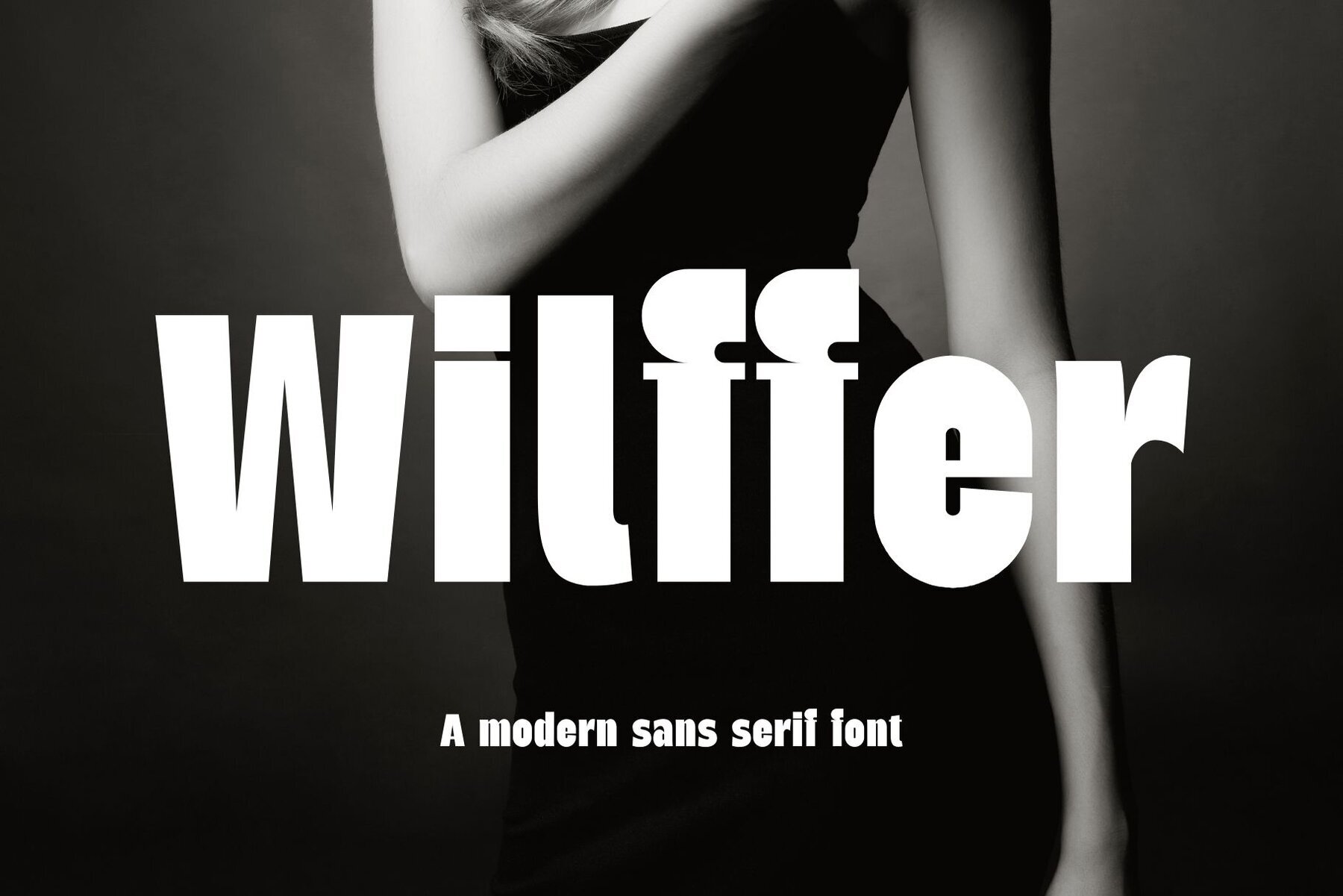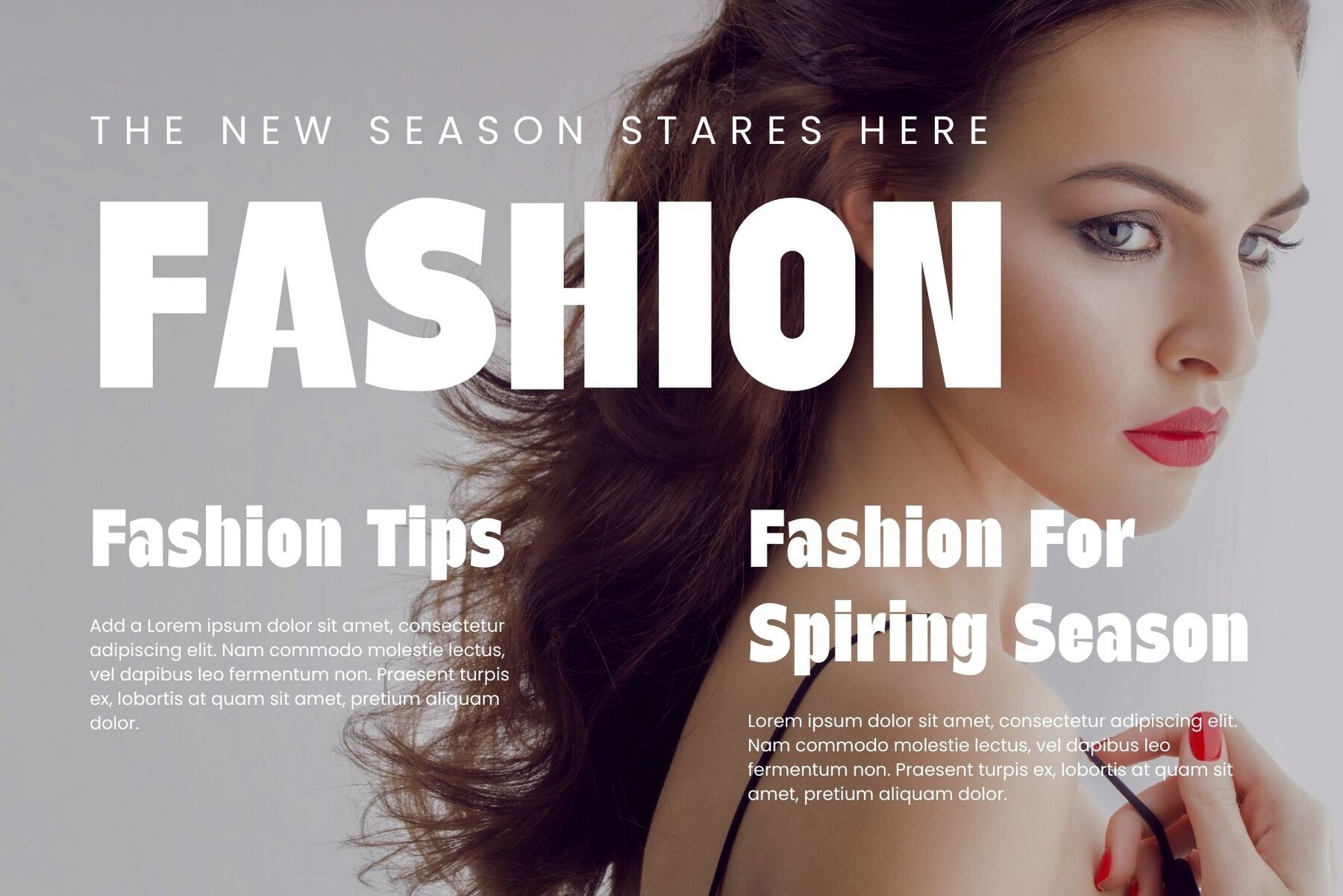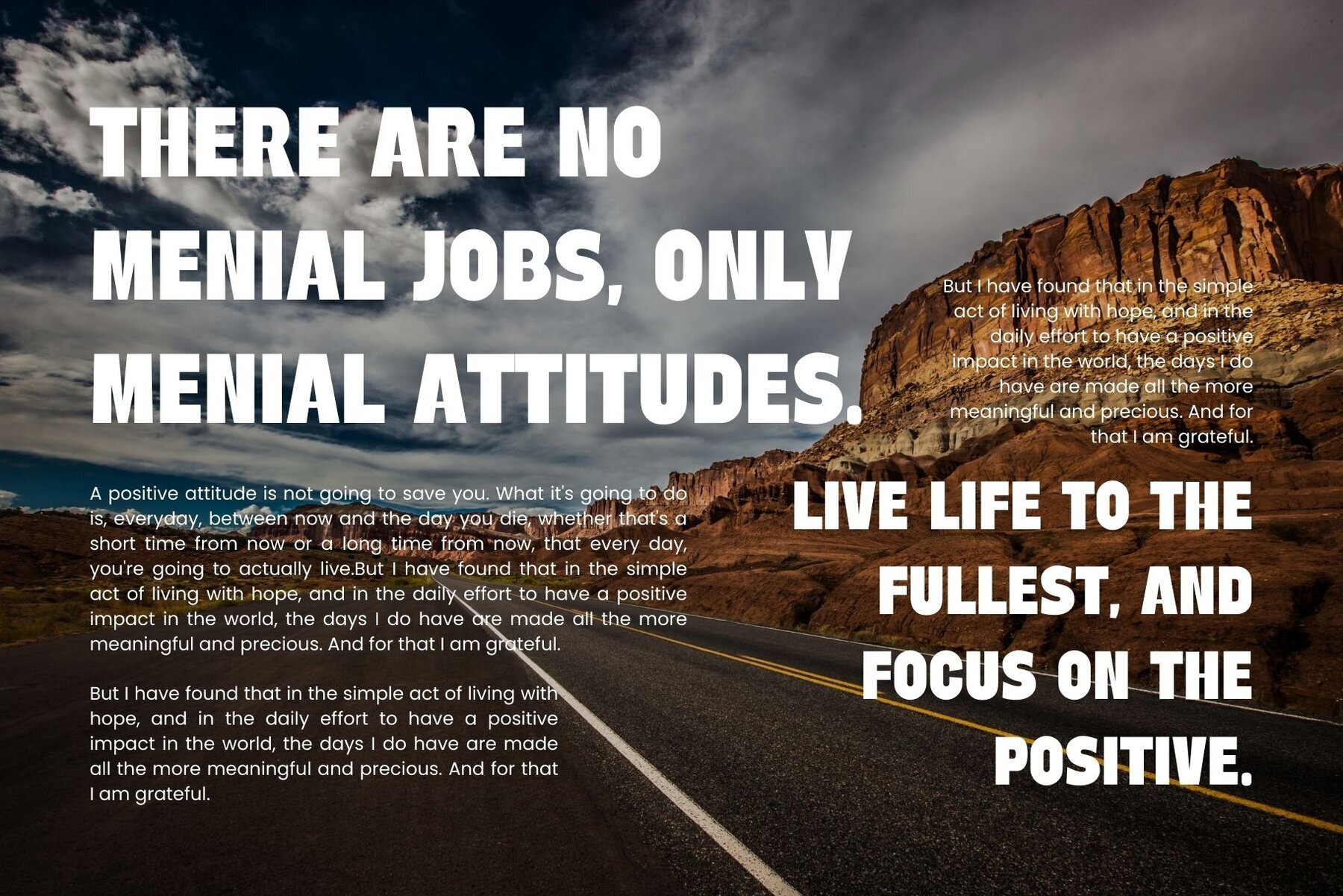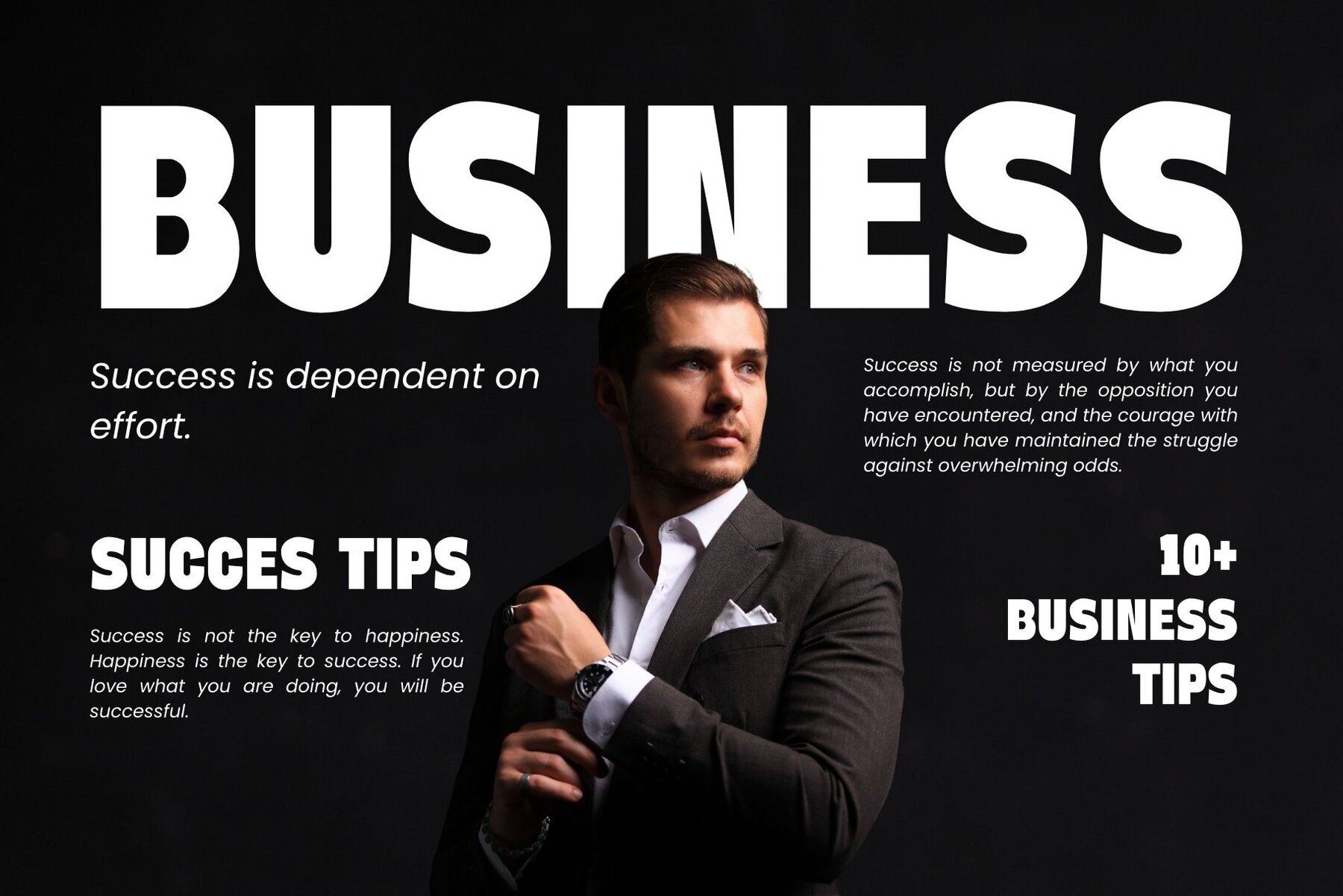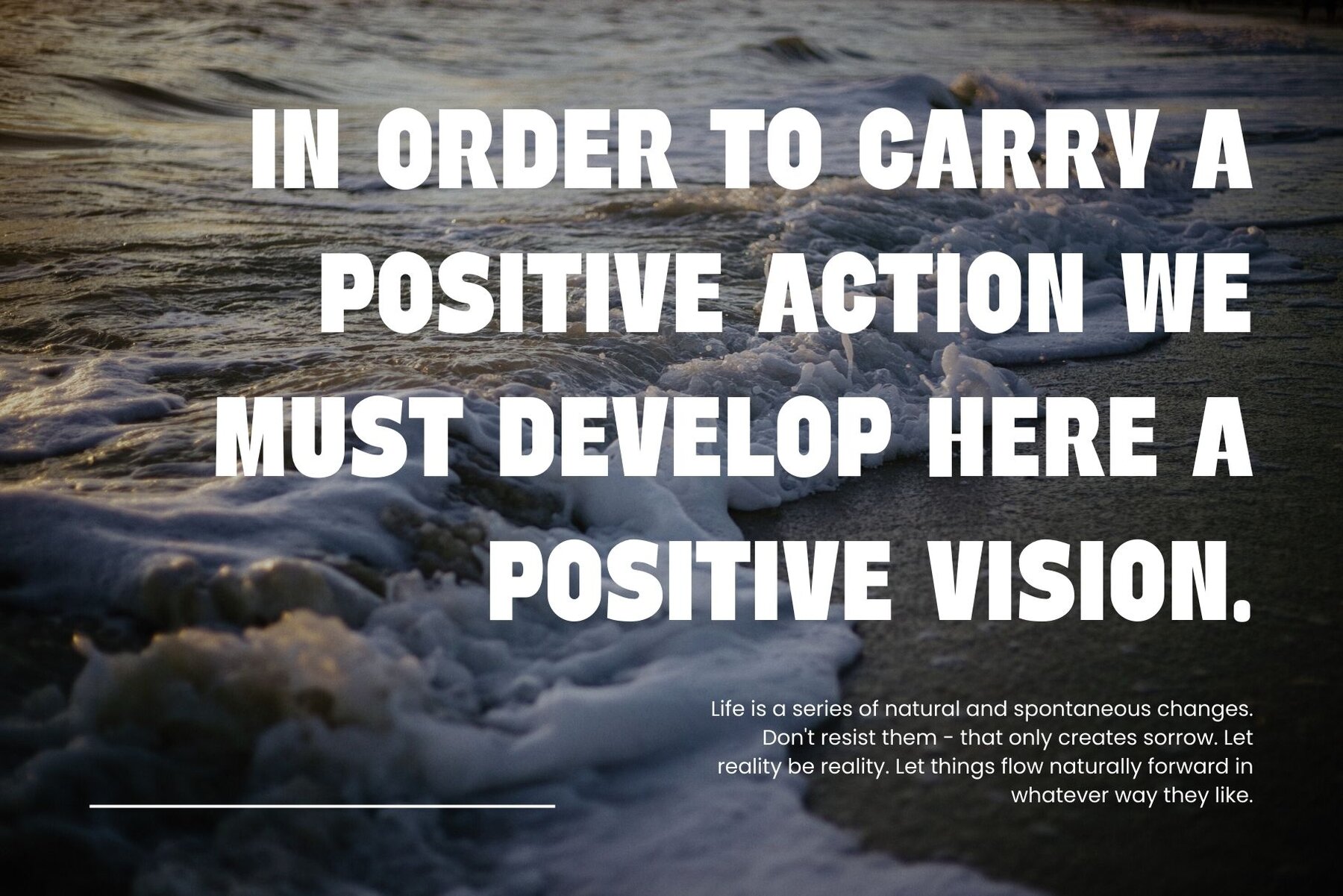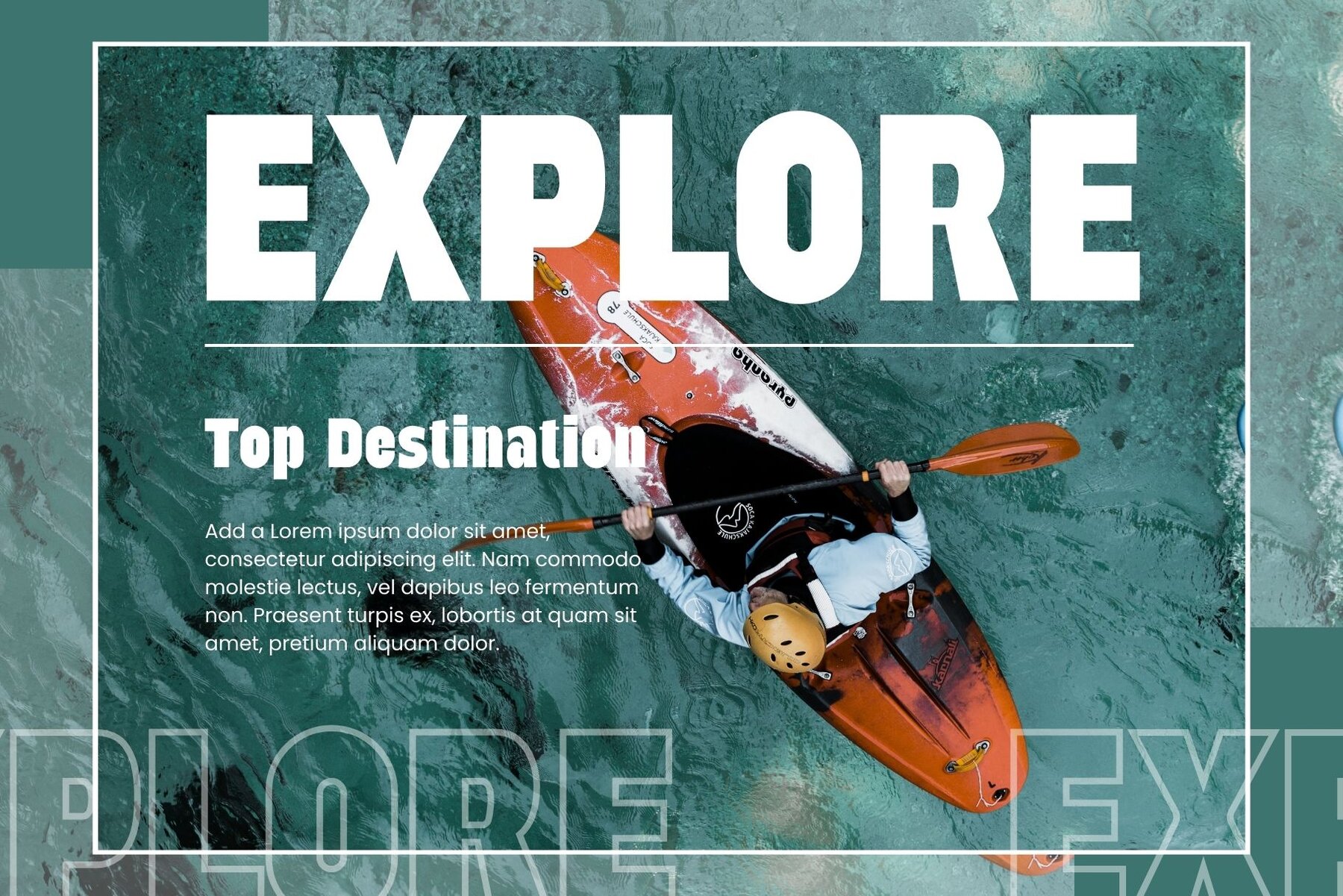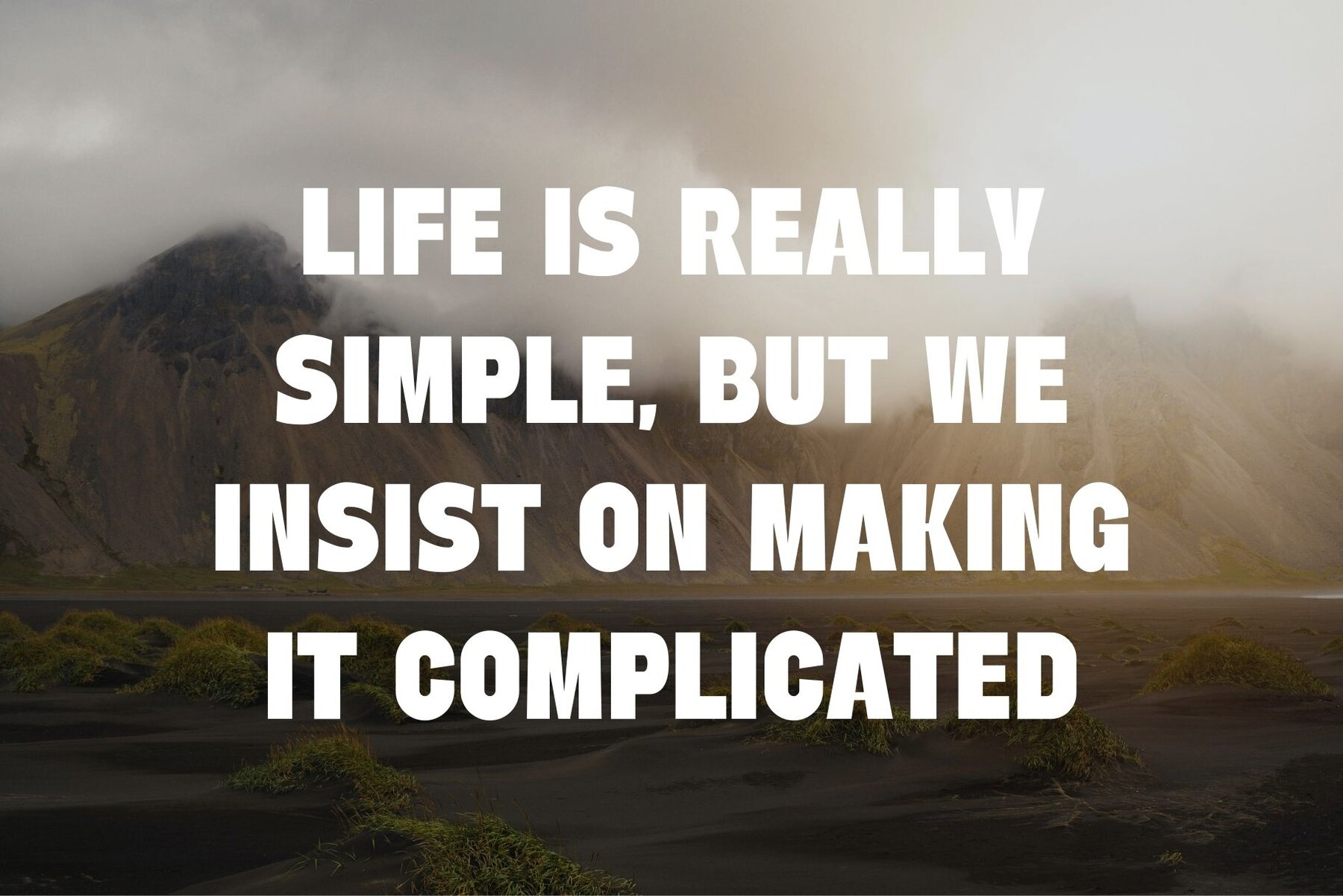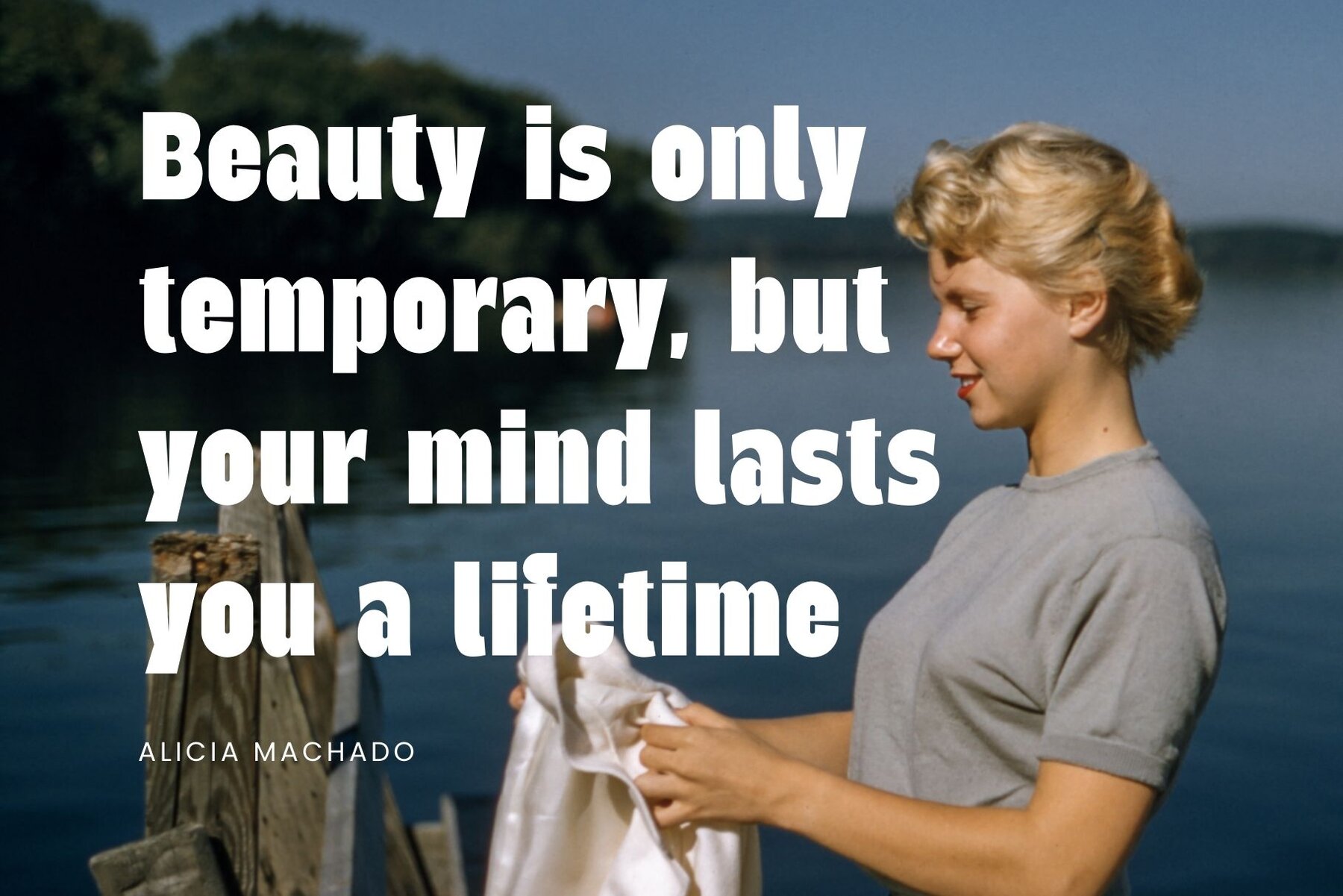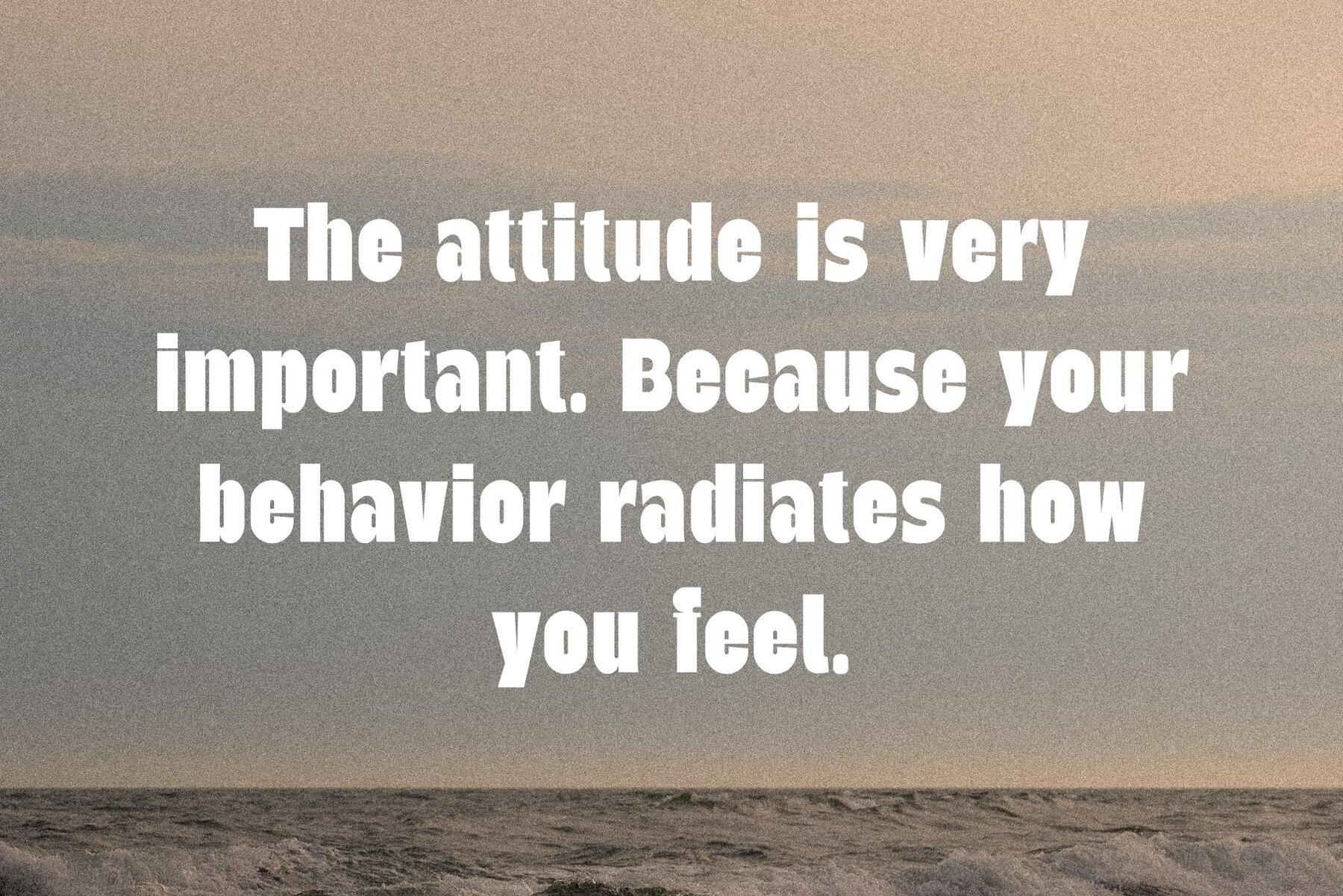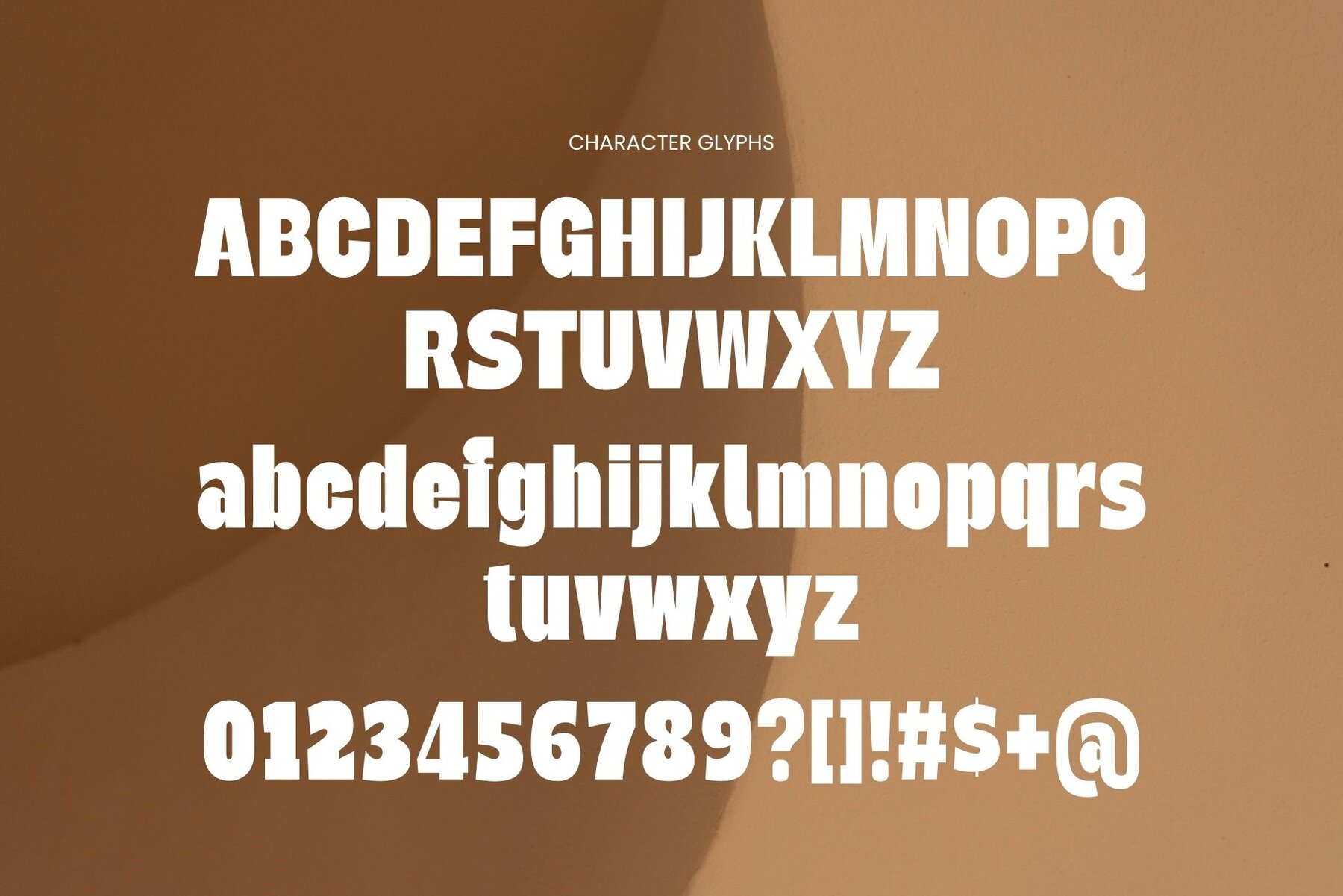
Wilffer Font
Wilffer Regular
Wilffer, crafted by Graphicxell, draws inspiration from renowned minimalist logos, making it an ideal choice for a variety of design projects. Its clean lines and sophisticated style are perfect for enhancing templates, brochures, videos, branding, and more.Wilffer: A Sleek Minimalist Typeface for Modern Designs
Exceptional Features